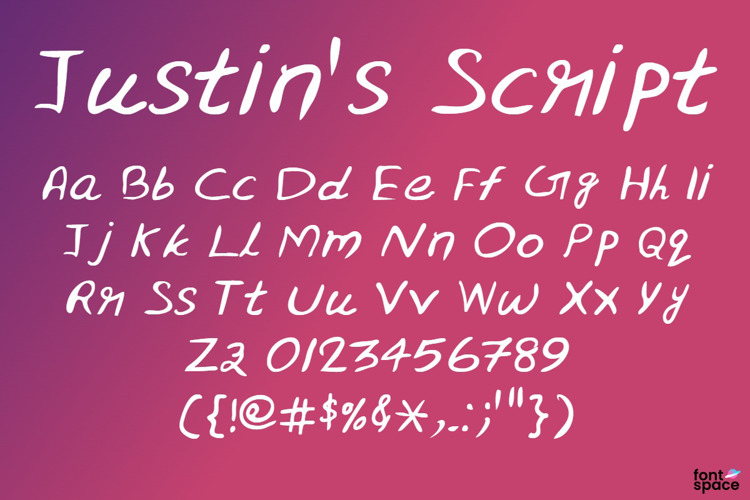
Justin's Script Font
Justin's Script is a simple handwriting-style font I've designed based on the handwriting of my cousin in an attempt to learn the font designing basics. Currently, it contains basic Latin glyphs.